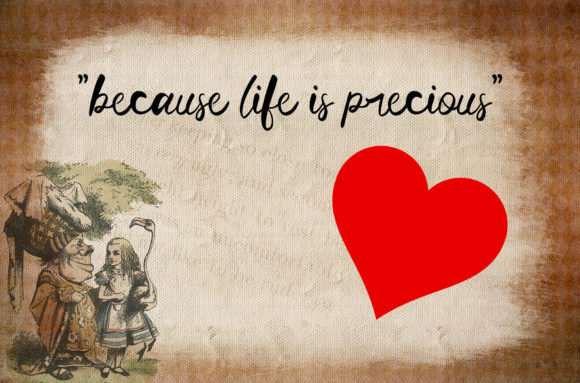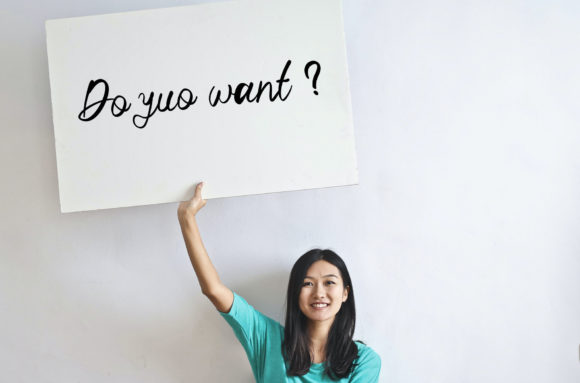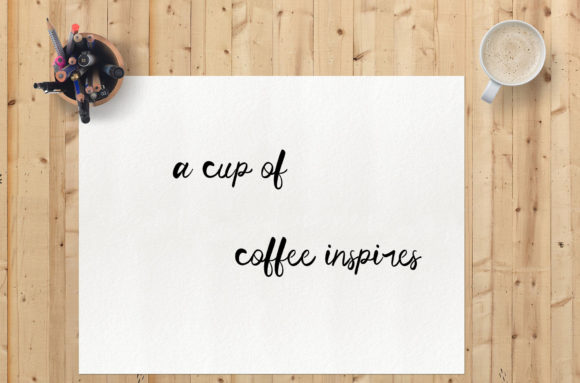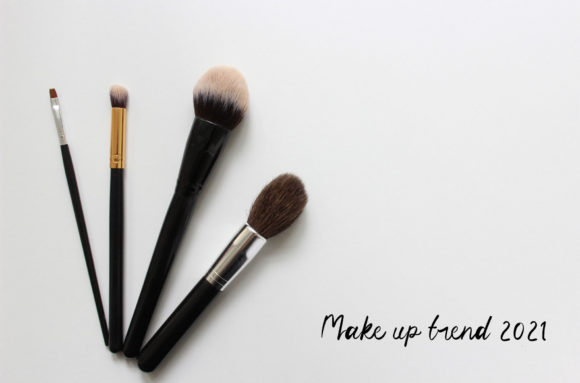
Cute Smile Font: Elevate Your Designs with a Delicate and Elegant Touch
Are you a designer or crafter looking for a font that can add a touch of elegance and whimsy to your creations? Look no further than the Cute Smile Font. This beautiful, handwritten font is perfect for a wide range of design projects, from invitations and greeting cards to branding and packaging. In this article, we’ll take a closer look at the Cute Smile Font, its features, and how you can use it to elevate your designs.
A Delicate and Elegant Handwritten Font
The Cute Smile Font is a delicate, elegant, and flowing handwritten font that is sure to capture the hearts of designers and crafters alike. Its beautiful and well-balanced characters make it a versatile font that can match a wide pool of designs. Whether you’re creating a feminine and playful design or a more sophisticated and elegant one, the Cute Smile Font is the perfect choice.
One of the standout features of the Cute Smile Font is its PUA (Private Use Area) encoding. This means that you can access all of the glyphs and swashes with ease, giving you complete creative control over your designs. With the Cute Smile Font, you can add flourishes and embellishments to your text, making it truly unique and eye-catching.
Key Features of the Cute Smile Font
- Delicate and elegant handwritten font: The Cute Smile Font is a beautiful, flowing script that adds a touch of whimsy to any design.
- PUA encoded: With PUA encoding, you can access all of the glyphs and swashes with ease, giving you complete creative control over your designs.
- Well-balanced characters: The Cute Smile Font has beautiful and well-balanced characters that make it a versatile font for a wide range of designs.
How to Use the Cute Smile Font in Your Designs
The Cute Smile Font is a versatile font that can be used in a wide range of design projects. Here are a few ideas to get you started:
- Invitations and greeting cards: The Cute Smile Font is perfect for creating beautiful and elegant invitations and greeting cards.
- Branding and packaging: Use the Cute Smile Font to add a touch of elegance and whimsy to your branding and packaging designs.
- Social media graphics: The Cute Smile Font is a great choice for social media graphics, such as Facebook posts and Instagram stories.
- Blog and website design: Use the Cute Smile Font to add a touch of personality to your blog or website.
Tips and Tricks for Getting the Most Out of the Cute Smile Font
Here are a few tips and tricks for getting the most out of the Cute Smile Font:
- Experiment with different colors and textures: The Cute Smile Font looks great in a variety of colors and textures, so don’t be afraid to experiment and find the perfect combination for your design.
- Use the font’s swashes and glyphs: The Cute Smile Font’s swashes and glyphs are a great way to add flourishes and embellishments to your text.
- Pair the font with other fonts: The Cute Smile Font pairs well with a variety of other fonts, so don’t be afraid to experiment and find the perfect combination for your design.
The Cute Smile Font is a beautiful and elegant handwritten font that is perfect for designers and crafters looking to add a touch of whimsy to their creations. With its PUA encoding and well-balanced characters, it’s a versatile font that can be used in a wide range of design projects. Whether you’re creating invitations, branding, or social media graphics, the Cute Smile Font is a great choice. So why wait? Download the Cute Smile Font today and start elevating your designs with a delicate and elegant touch.